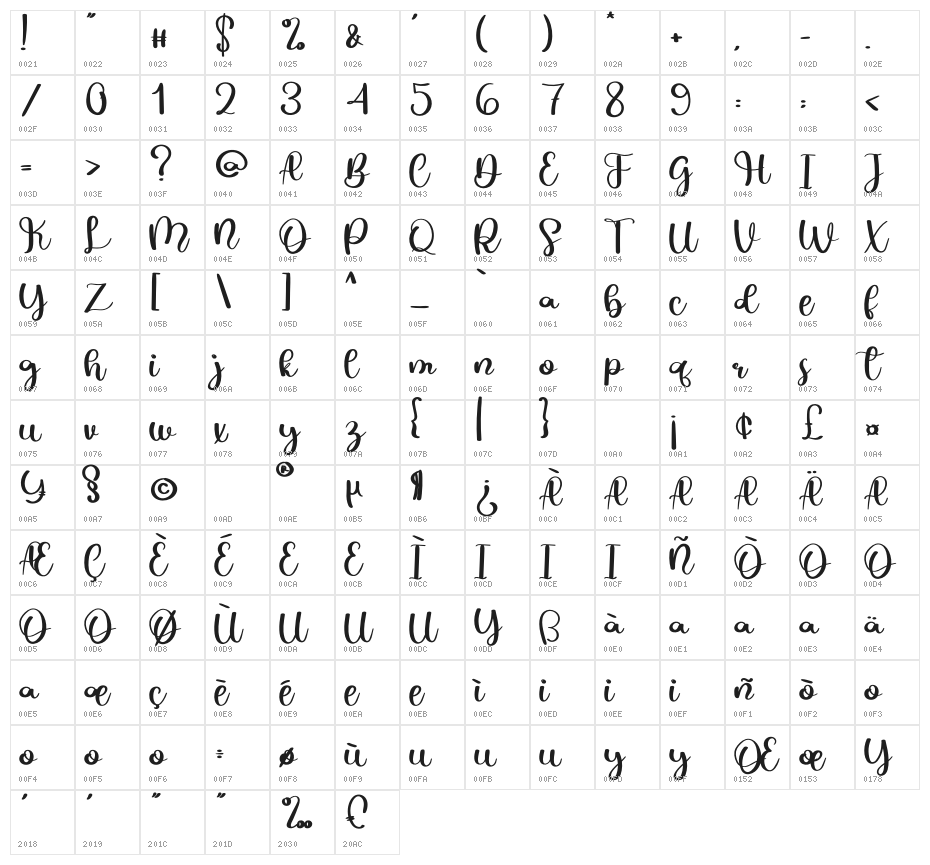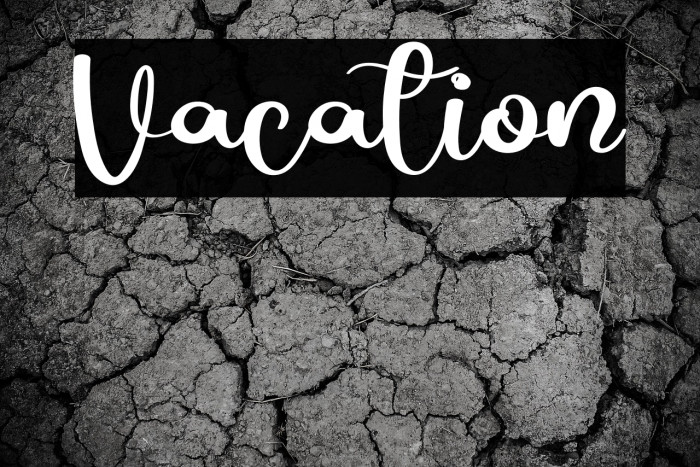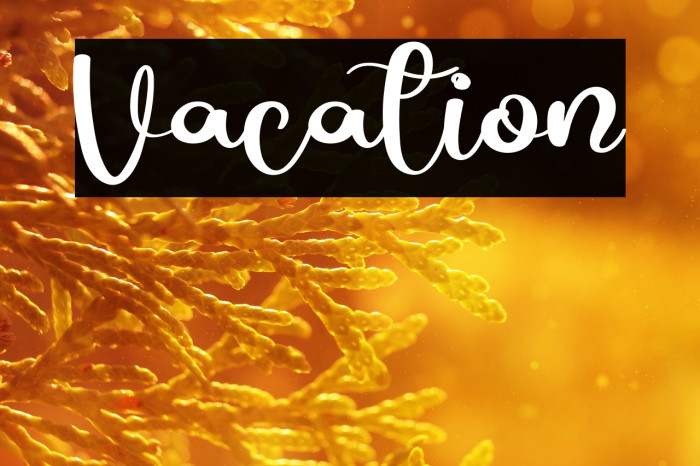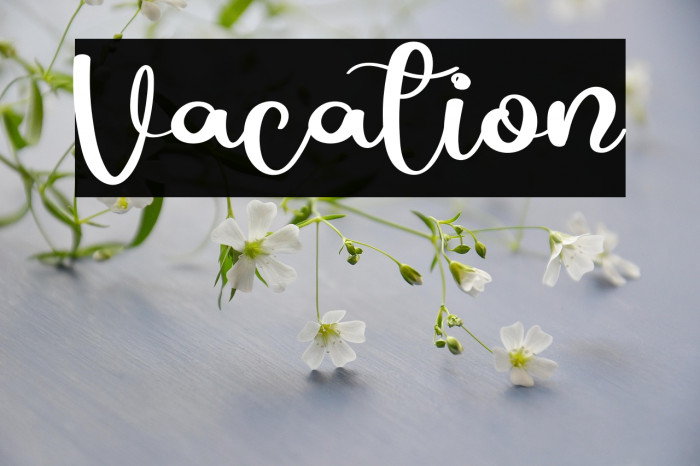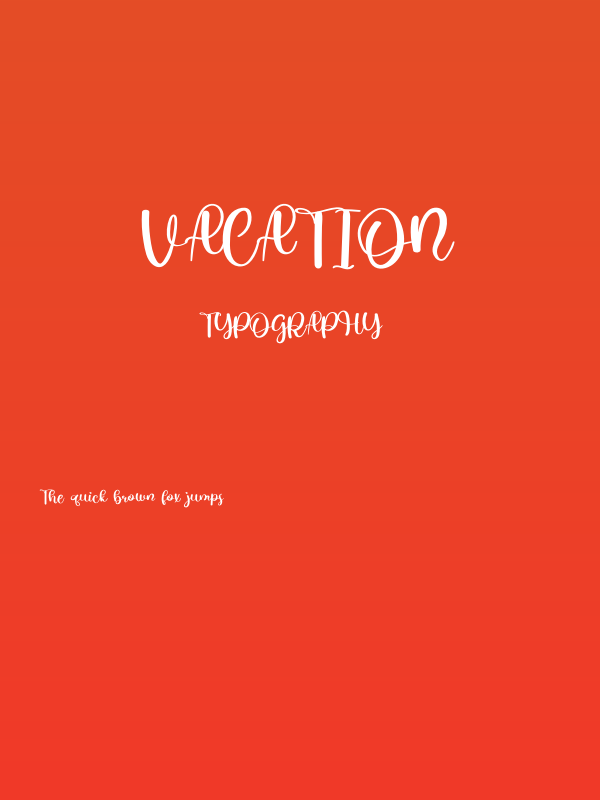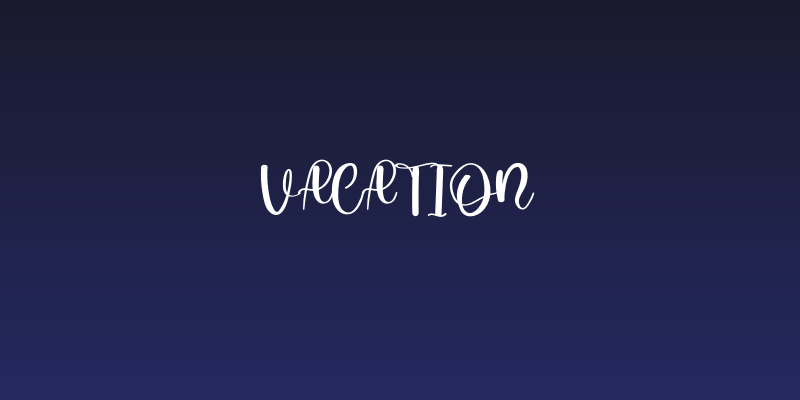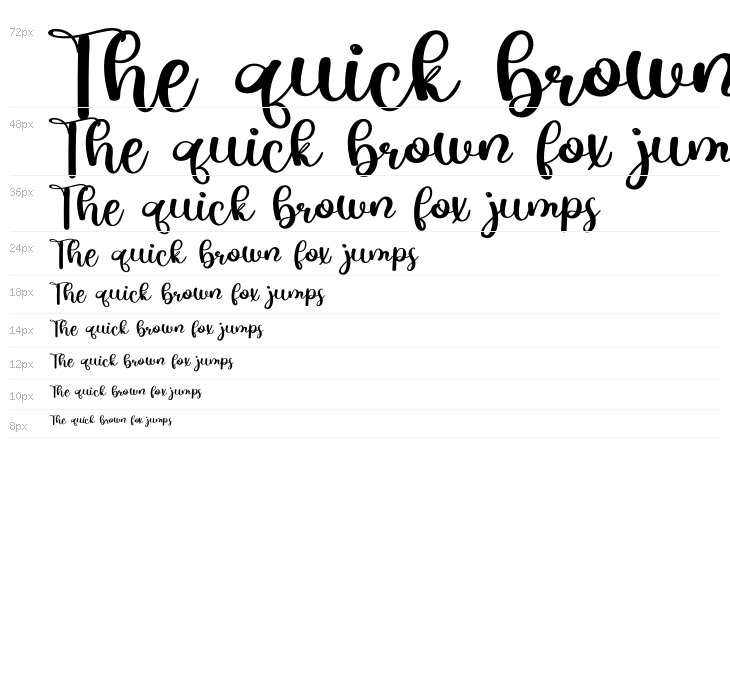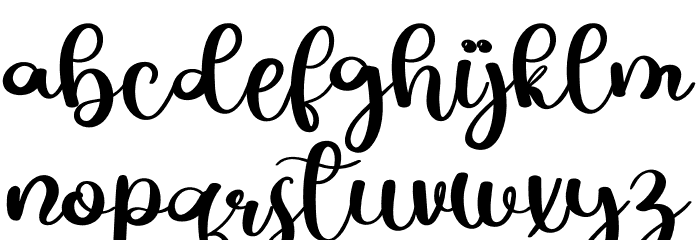
Vacation Font
Vacation Description
This font features a playful and energetic script style, characterized by its flowing, cursive letterforms. The uppercase letters exhibit a whimsical flair with varying stroke widths, while the lowercase letters maintain a consistent, rounded appearance. The numerals are bold and slightly exaggerated, adding to the font's lively personality. Special characters are creatively integrated, maintaining the overall aesthetic. This font's dynamic and informal style makes it ideal for projects that require a touch of fun and creativity.
| Proposed Projects | Ideal for greeting cards, invitations, playful branding, and social media graphics. |